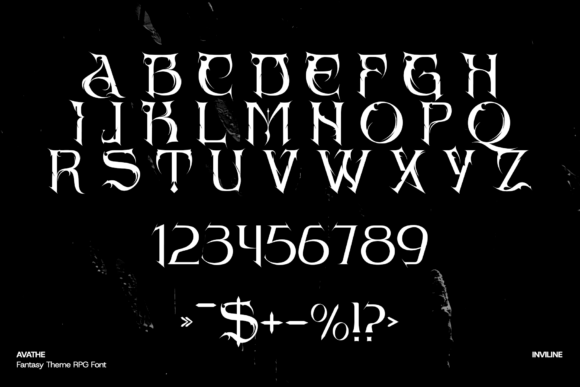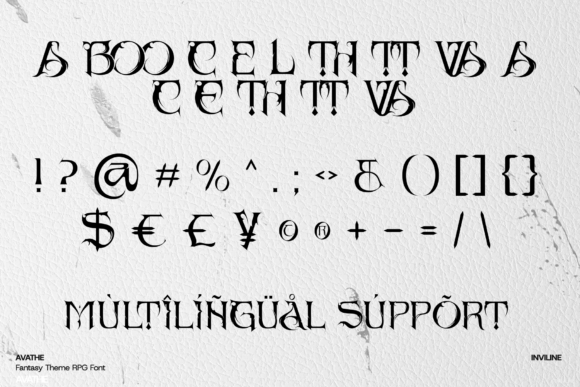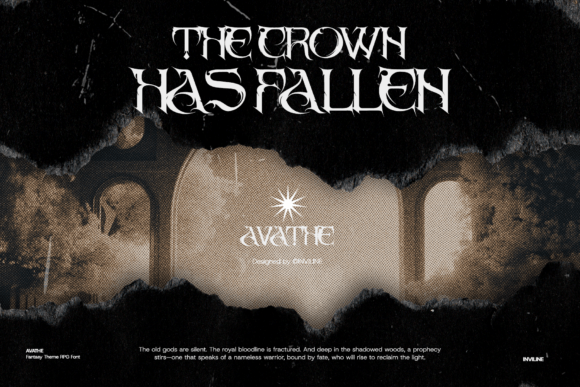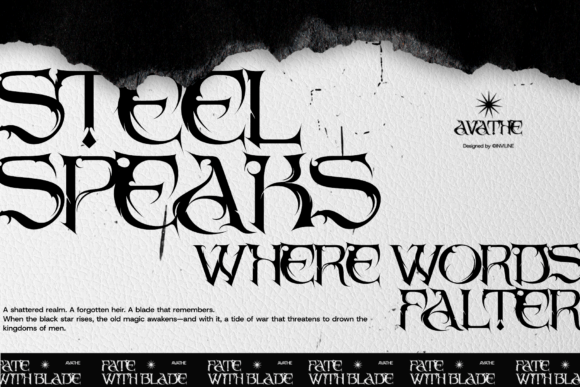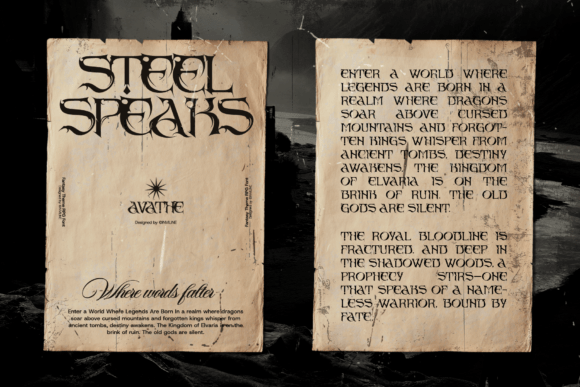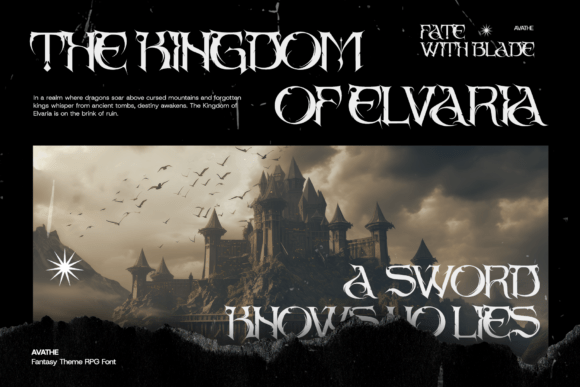
Avathe Font
Avathe is a fantasy-themed display font inspired by the dramatic elegance of gothic lettering and medieval scripts. With sharp ornamental serifs, dark curves, and an ominous tone, Avathe brings a bold and mysterious character to every design. Perfect for RPG game titles, black metal band logos, book covers, and movie posters, this font captures the essence of ancient legends and dark magic. Each letter is crafted with flair, making it ideal for projects that seek to evoke intensity, mysticism, and epic fantasy narratives. Whether you’re designing for a fantasy role-playing campaign or branding a gothic fashion line, Avathe delivers an unforgettable impact.